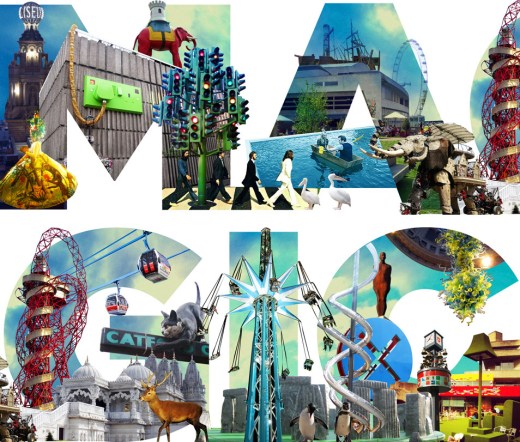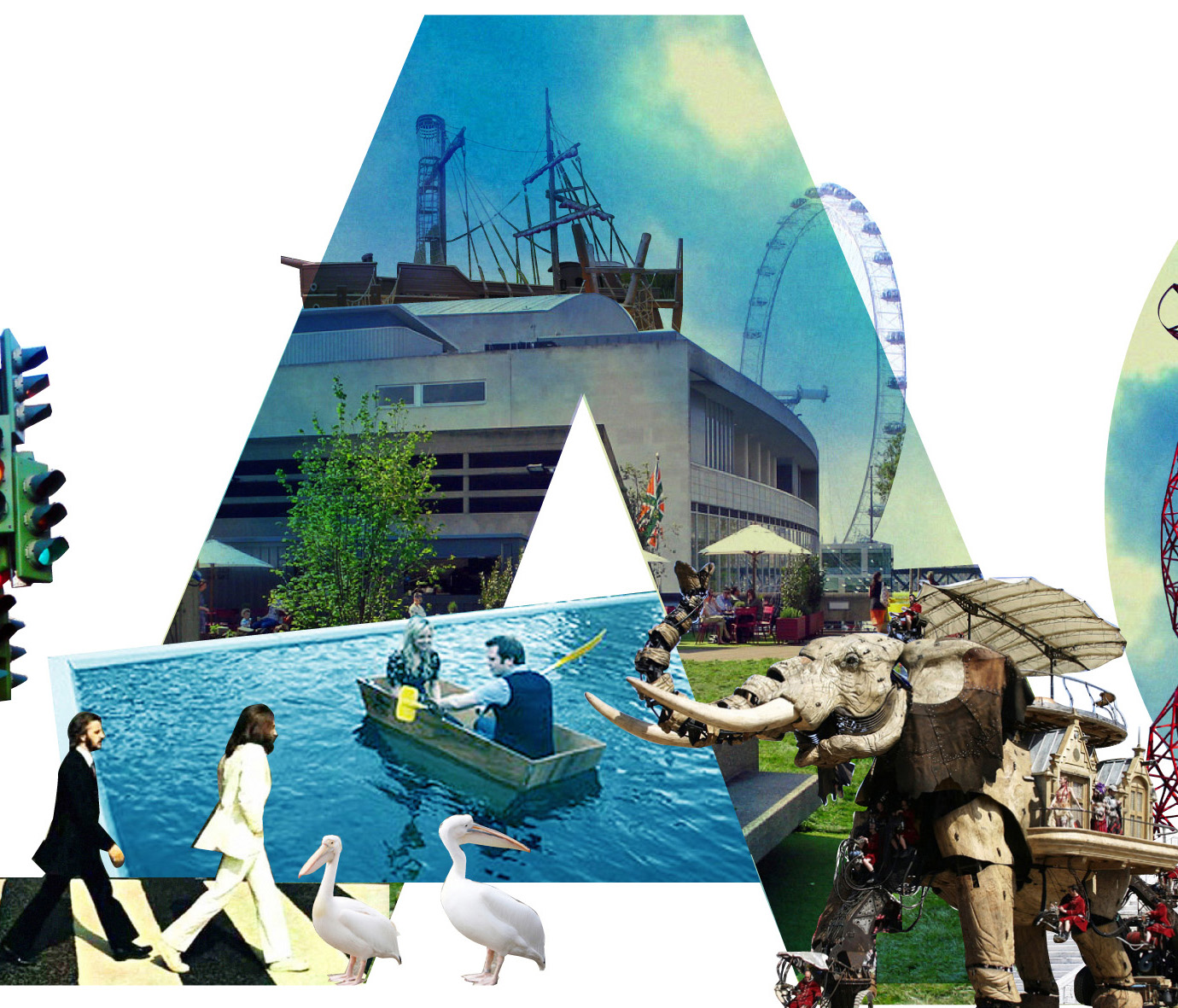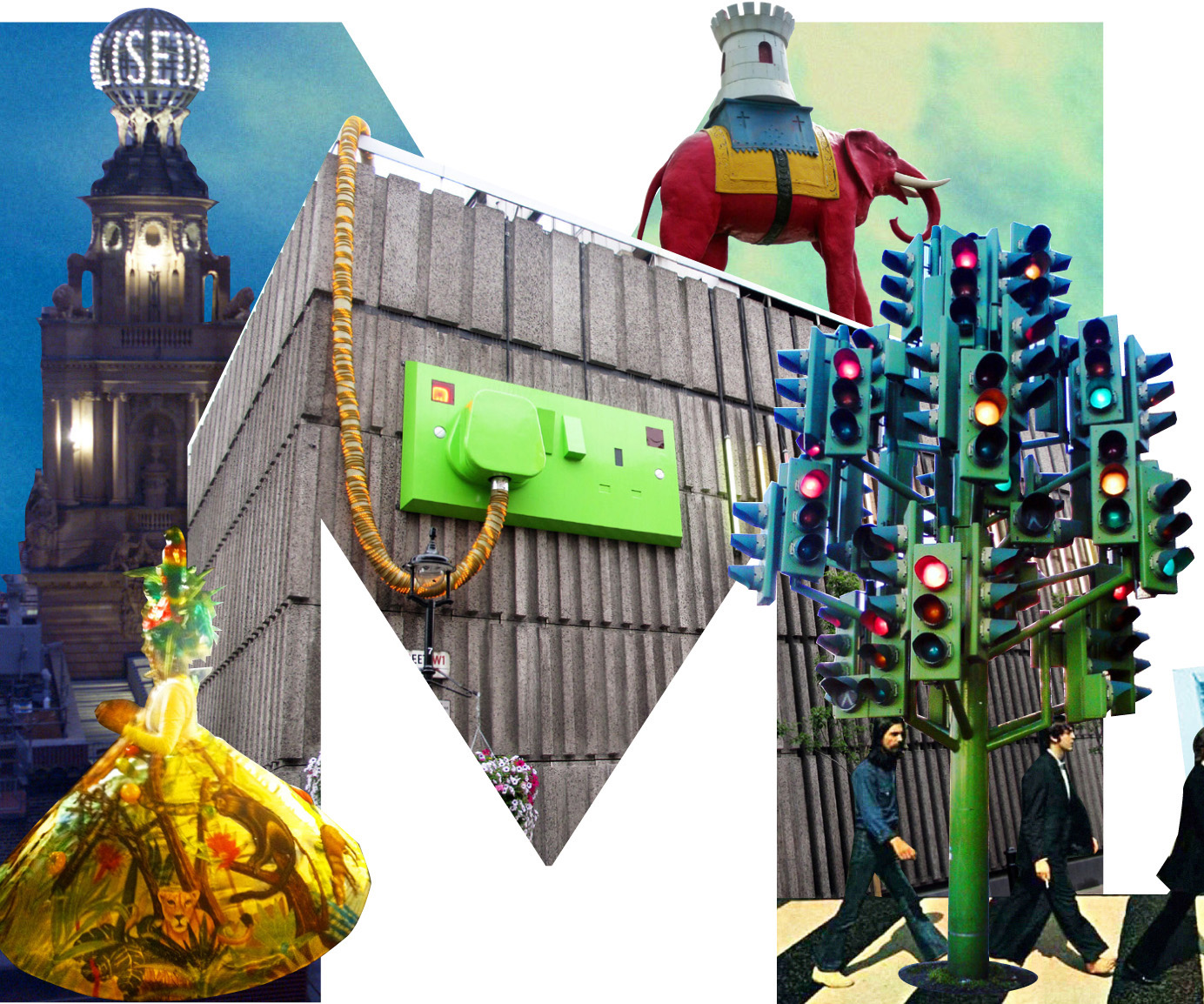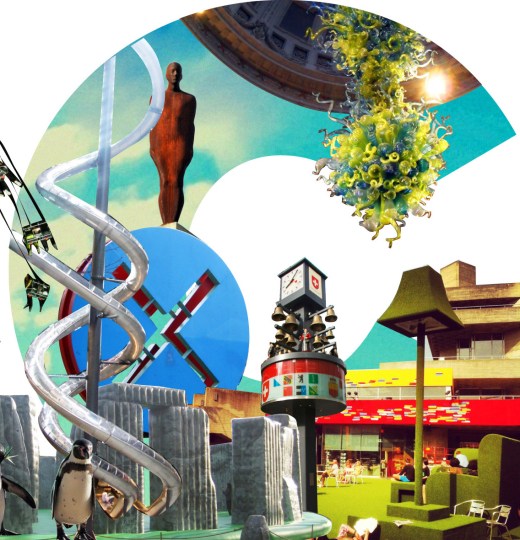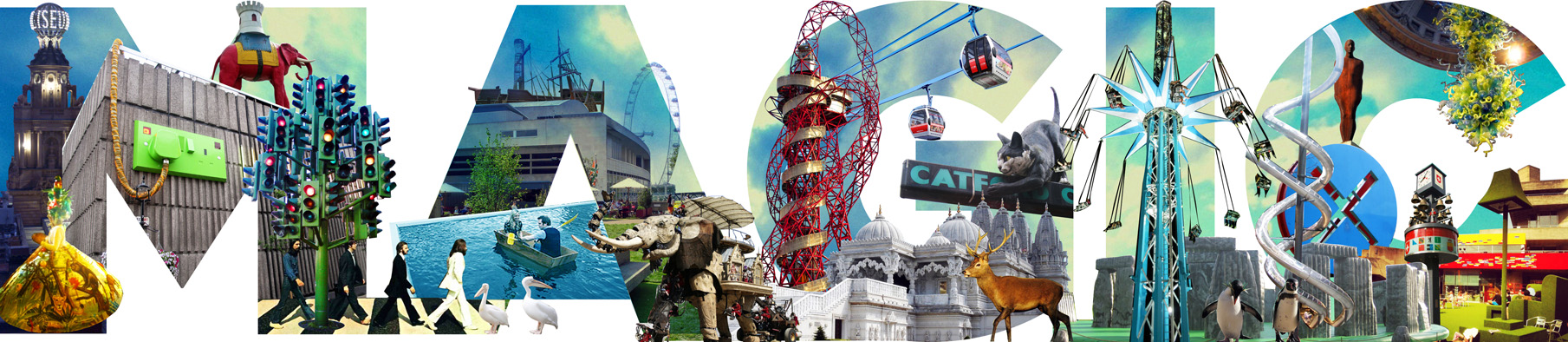
‘Magic’ by Julia Woollams
Julia Woollams is a graphic designer and born-and-bred Londoner (well, if you class Croydon as London, as she does!) She studied graphic design at Central Saint Martins and after a bit of freelancing at the BBC she started working at johnson banks design in Clapham, and is still there over a decade later. Although specialising in branding nowadays, she still loves the chance to do some image-making, especially if it involves the best city on earth (she’s not biased at all…).
“London is magic to me, as it is full of so many magical things to do and see, that aren’t necessarily part of the conventional tourist trail. My ‘Magic’ Collage is made up of just some of the things that make me love London”
M: Coliseum, Thames Festival night carnival, Giant plug, Ganton Street, Elephant and Castle statue, Traffic Light tree, Canary Wharf, Abbey Road zebra crossing.
A: Skyline boating pond at the Hayward’s Psycho Buildings exhibition, Kensington Gardens playground pirate ship, Queen Elizabeth Hall roof garden, The Sultan’s Elephant.
G: The Orbit, Neasden temple, Emirates Air Line, Catford cat, Richmond park deer.
I: The StarFlyer, Bouncy Stonehenge.
C: London Zoo penguins, Carsten Höller’s Tate Modern slides, John Edwards’ Hitchcock’s Reel, Leonard Street, Antony Gormley sculpture, V&A Rotunda chandelier, Swiss Glockenspiel, Leicester Square, National Theatre big grass furniture.
‘Magic’ by Julia Woollams is one of the words that will be displayed at Type Tasting with the London Design Festival 2013 at the V&A.